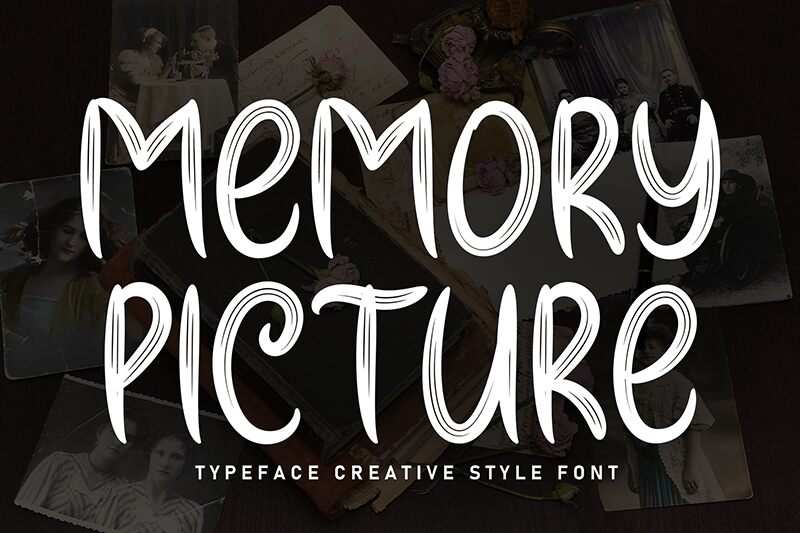
Memory Picture
Memory Picture font by Andi Moz is a brush style free font that brings whimsical, quirky, and hand-drawn text to your projects. Its textured look gives characters an artistic flair and an expressive mood.
Use it freely in artsy invitations, greeting cards, posters, product packaging of any kind (makeup cases or tea boxes), quotes printed on T-shirts, or silly comic books to entertain kids.